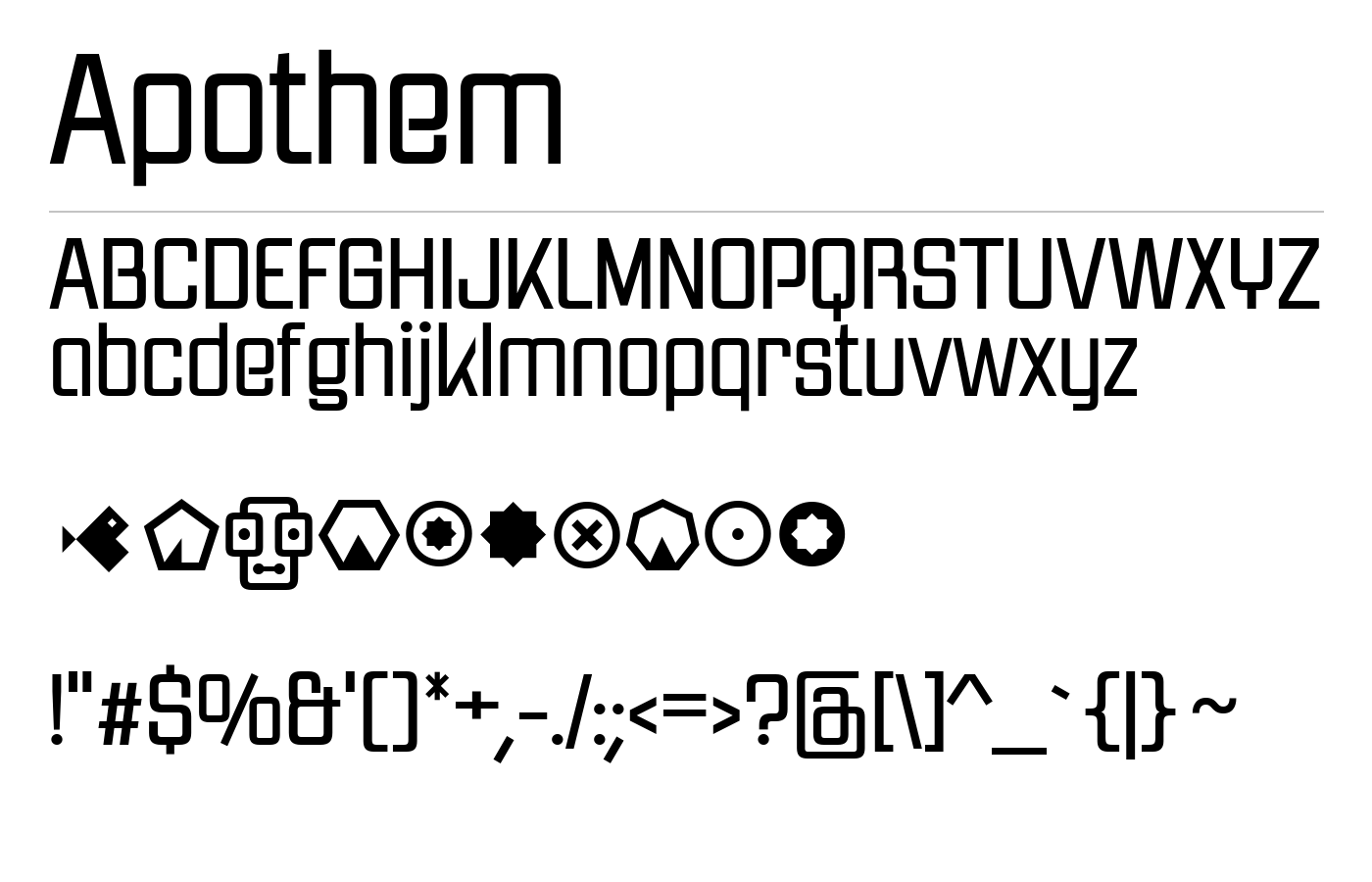
Apothem is a modern, condensed sans-serif font with a clean, geometric structure and medium stroke contrast. Its narrow letterforms and tall x-height create a sleek, technical feel, making it ideal for contemporary branding, headlines, and editorial uses where a strong, futuristic look is desired. This font’s distinctive shapes and tight spacing add a unique personality while maintaining excellent readability.
Apothem Font
About Apothem Font